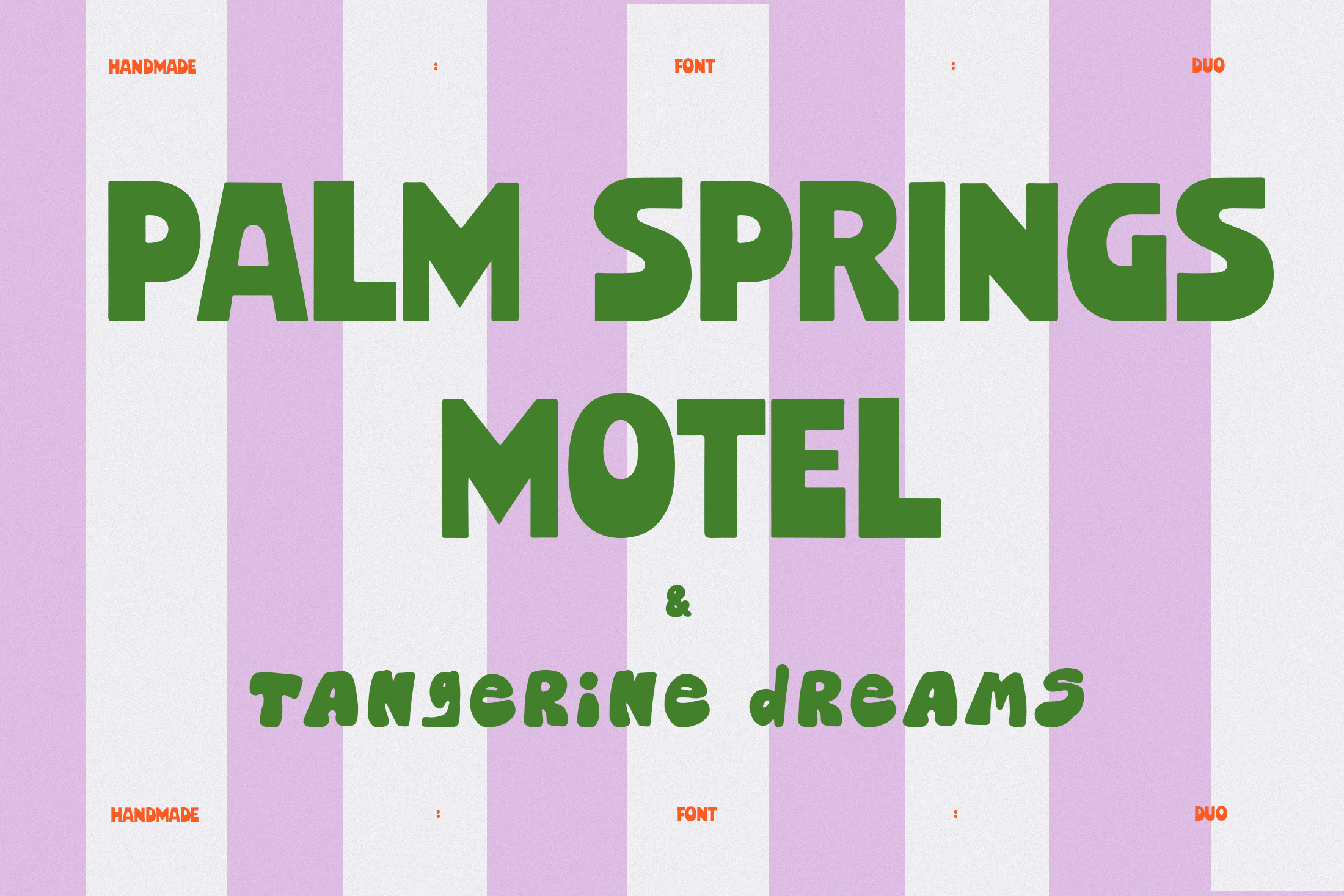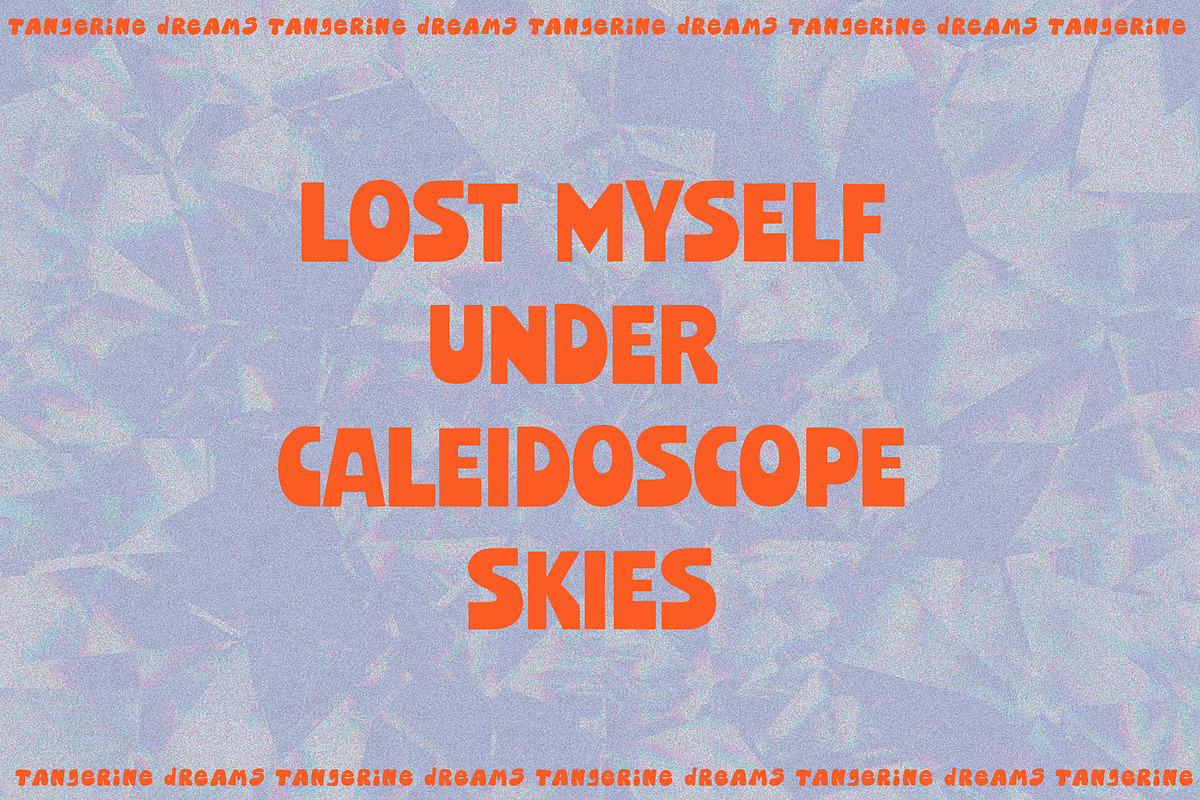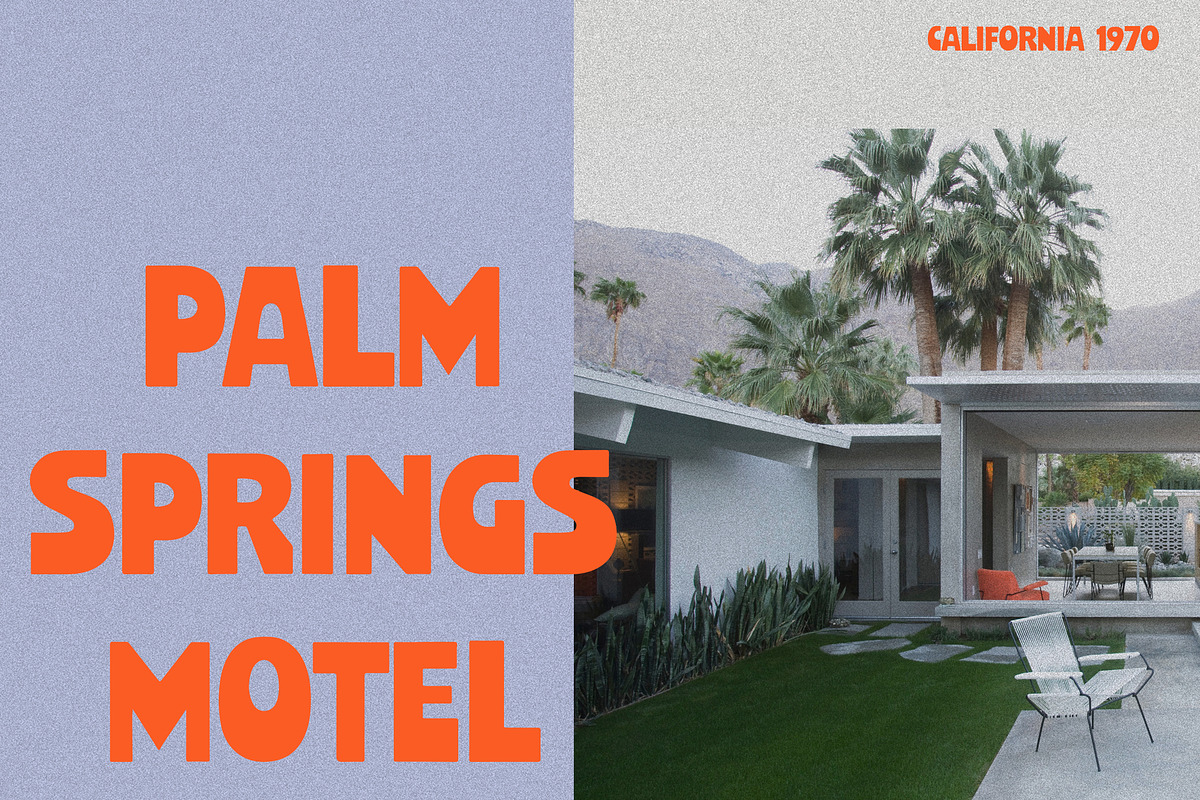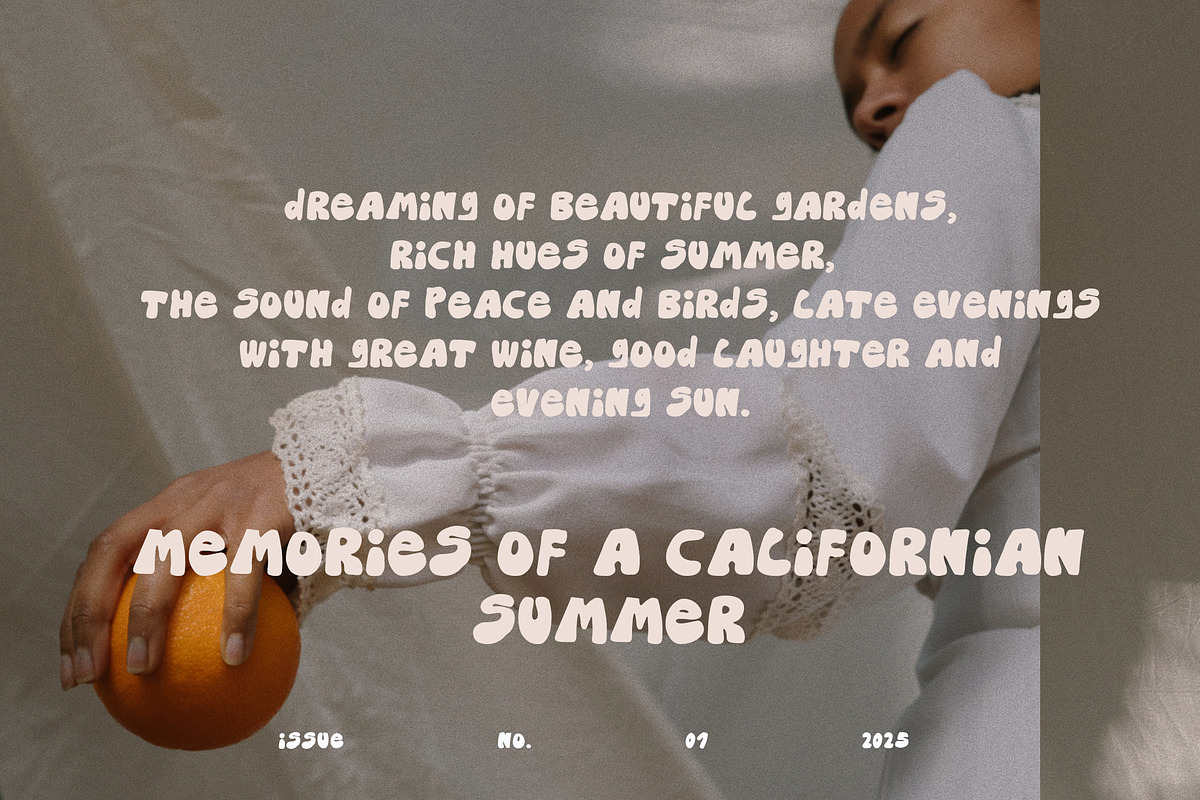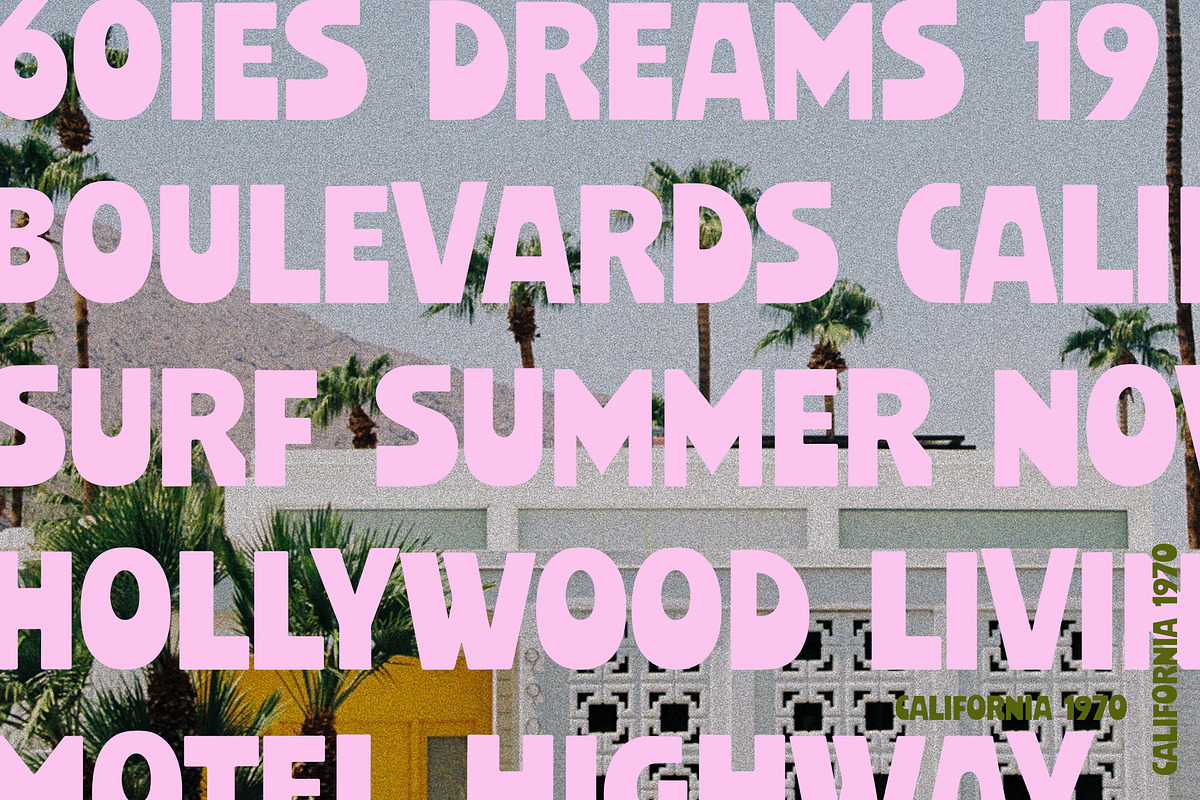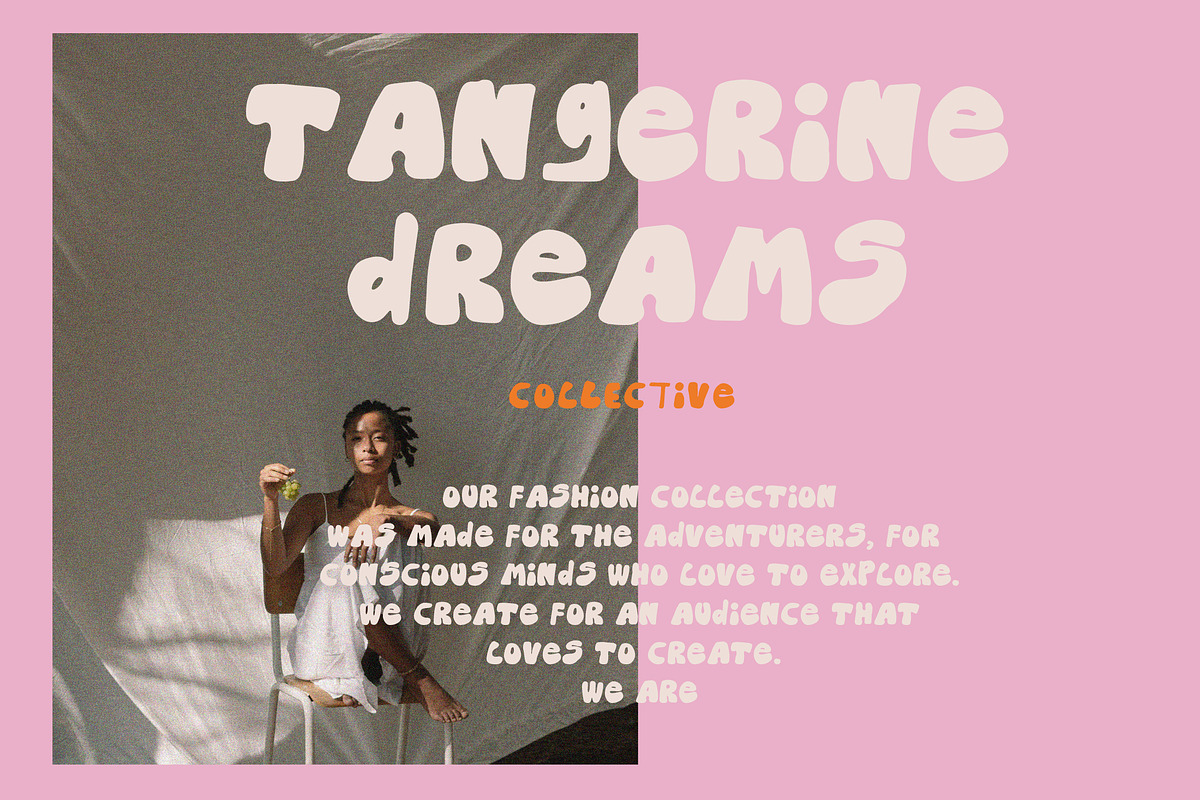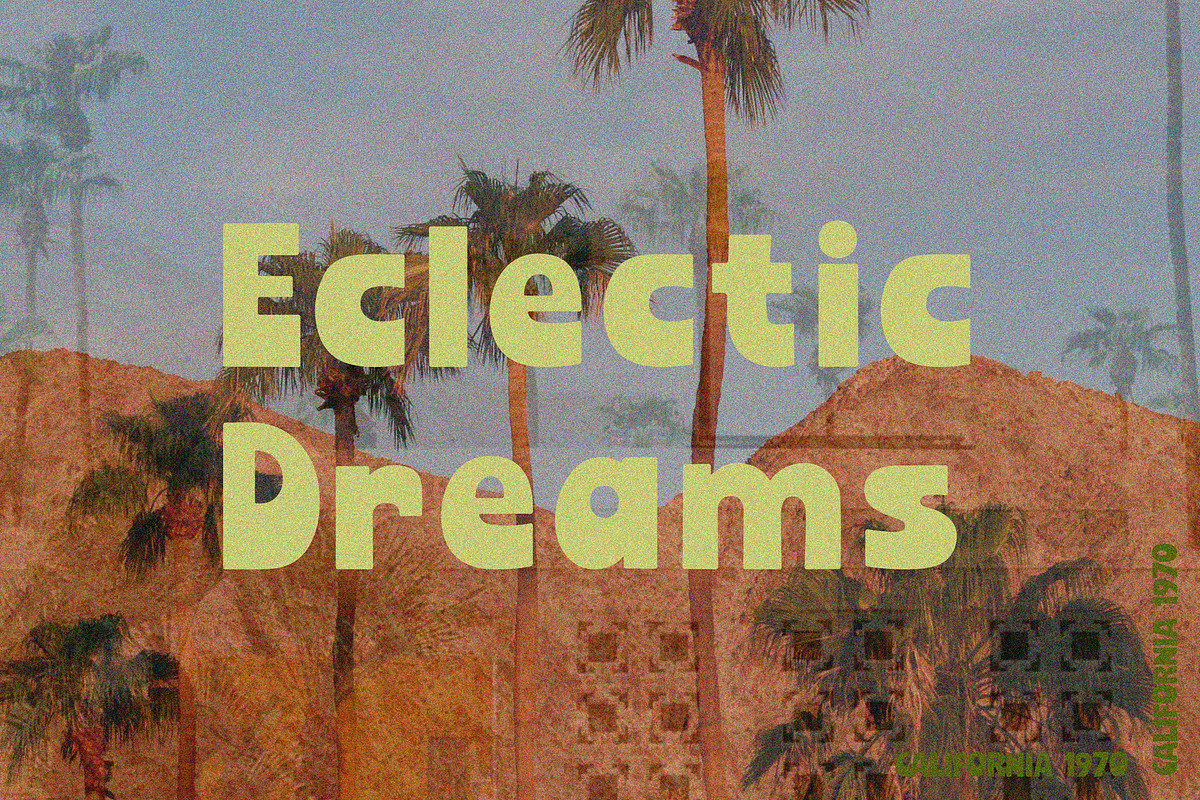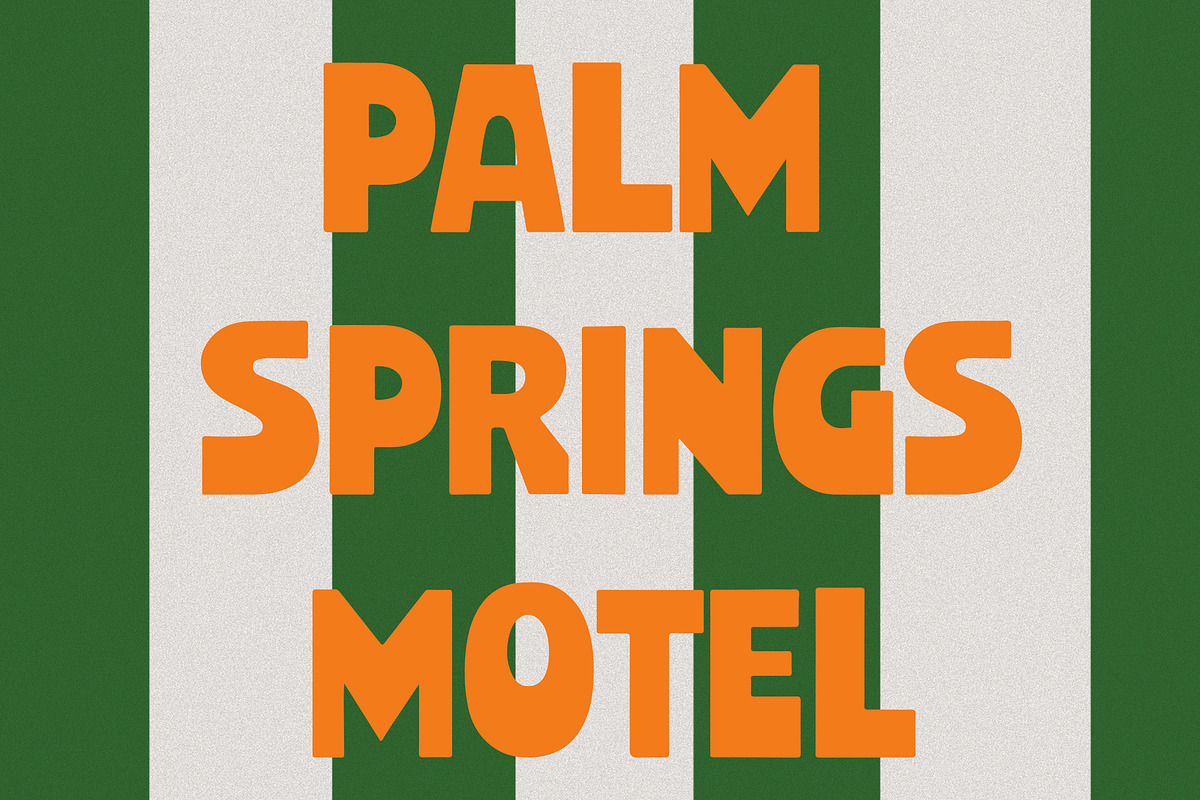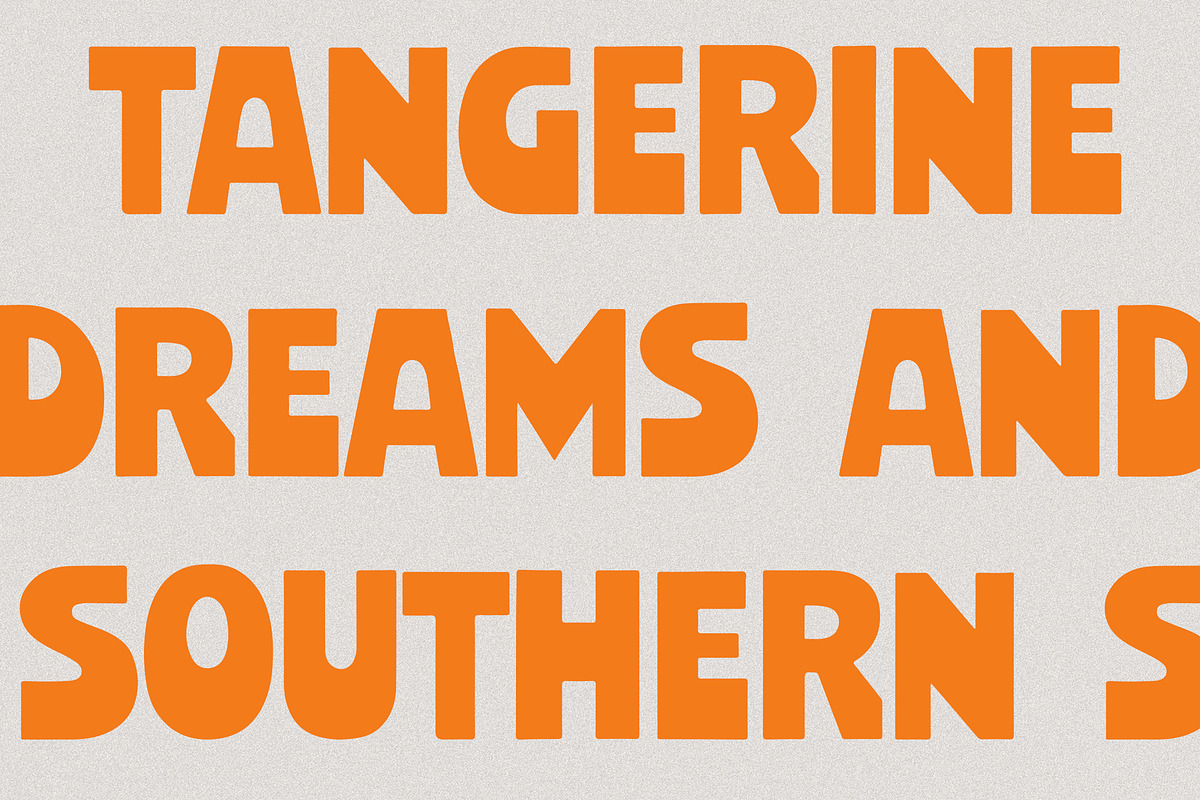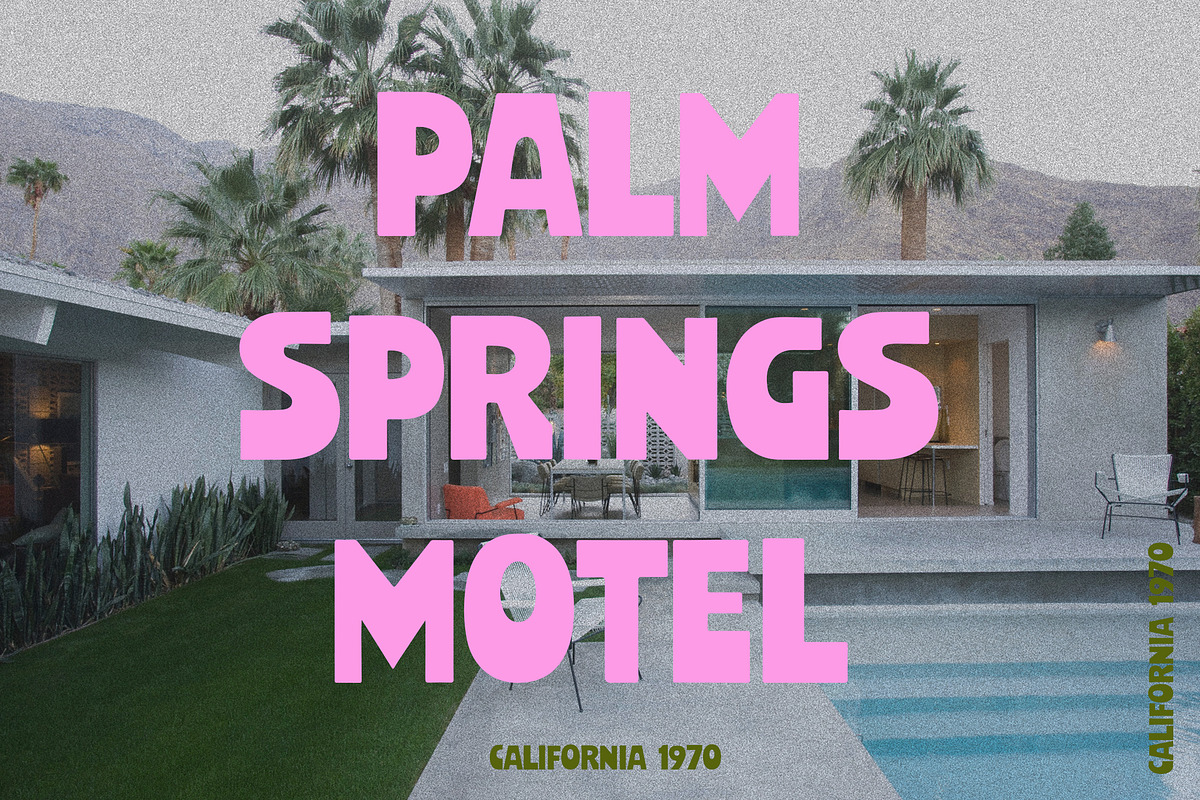
Bold Handwritten Sans Serif Font Duo
Step into the golden glow of a Californian summer with Palm Springs Motel & Tangerine Dreams. This bold and stylish font duo is inspired by the free spirit of the 60s and 70s. Think surf culture, roadside motels, analog warmth, and bohemian freedom - all captured in a type duo that’s easy to use and endlessly versatile. Add those retro editorial vibes to your print and poster designs, social media, packaging and branding or vintage-inspired product line.
PALM SPRINGS MOTEL.OTF A super bold sans serif with confident curves and sun-drenched energy — ideal for retro editorials, packaging, and standout branding.
TANGERINE DREAMS.OTF A handwritten, handmade font that feels effortless, natural, and full of personality — perfect for quotes, logos, and layered text treatments.